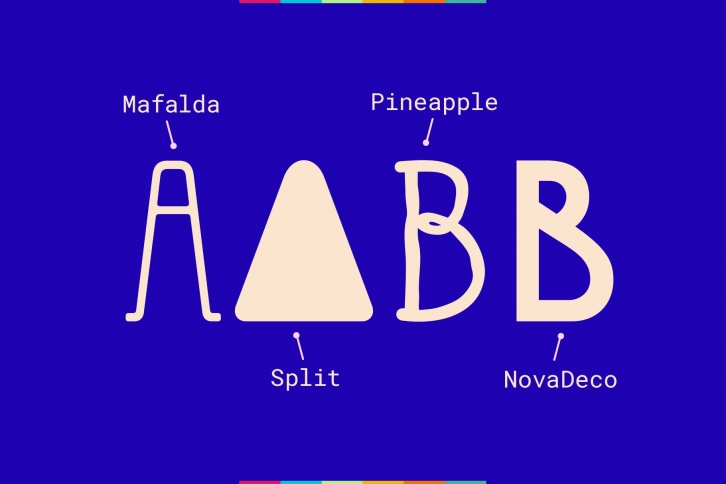
Font Bundle Collection vol.1 by Types & Boats
The first Types & Boats font bundle collection is here and includes all of our type families with 14 fonts (Display & Sans Serif). This bundle is an awesome choice for your next design project. Its a perfect match for posters, headings, logos, merchandise, t-shirts, magazine, banner, and for many other purposes you may want.
All fonts supports over 72 languages, including: Danish, Dutch, English, Portuguese, Finnish, German, French, Galician, Icelandic, Indonesian, Irish, Italian, Norwegian Bokmål, Norwegian Nynorsk, Romansh, Spanish, Swahili, Swedish, Swiss German and more.